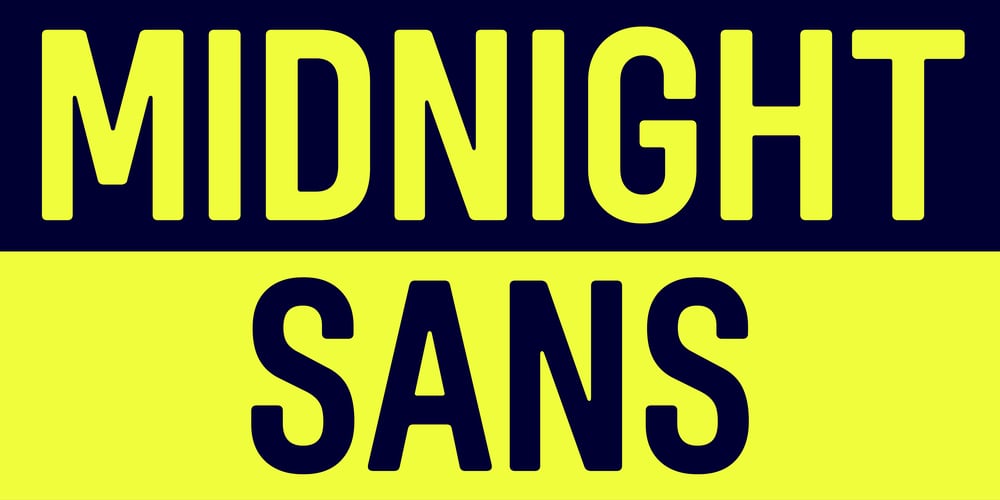
Midnight Sans
Midnight Sans font
Midnight Sans Font Family was designed by Colophon Foundry and published by Colophon Foundry. Midnight Sans contains 60 styles and family package options. Midnight Sans was initially drawn for Gary Green’s ‘When Midnight Comes Around’, published by our friends at STANLEY/BARKER in 2020. The Condensed-only style embodied a warm but idiosyncratic flavor: a reflection of the publication’s photographs, which document the burgeoning downtown alternative music scene of 1970s New York City.In expanding Midnight into further widths, the type family began to emulate qualities found elsewhere in the variegated visual legacies of underground car culture, 1990s nostalgia, and DIY rave flyers. For example, the counter of the letter ‘O’ in the condensed style 12 Black subsequently tweens through the type family’s five widths to become elongated in the most expanded style, 60 Black. These changes in form allowed for the typeface to be drawn with variability in mind, enabling both freedom and constraint in equal measures. The details found in the expanded widths of Midnight Sans evoke qualities of Aldo Novarese’s Eurostile (1962), but behave more like cousins or second cousins as the width of the type fluctuates.